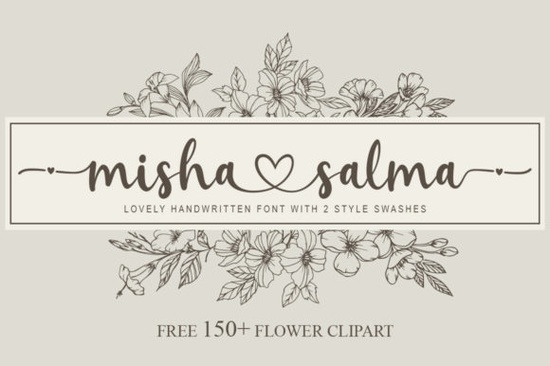
If you've been searching for a handwritten font that feels both elegant and approachable, the Misha Salma Font is worth a close look. It's a dainty, refined script that works beautifully for wedding invitations, greeting cards, and any project that calls for a romantic, personal touch. I've used it across several design projects, and it consistently delivers that warm, hand-lettered feel without looking messy or overdone.
What kind of projects is Misha Salma best suited for?
This font shines in projects where elegance meets intimacy. Think wedding stationery, love letters styled as art prints, Valentine's Day cards, or boutique branding for small businesses in the beauty and lifestyle space. The letterforms are delicate and flowing, so they pair well with soft color palettes and minimal layouts.
Here are a few project ideas where Misha Salma really works:
- Wedding invitations and save-the-dates the romantic style fits formal and semi-formal layouts
- Greeting cards birthdays, anniversaries, thank-you notes
- Social media quotes especially for lifestyle and beauty brands
- Print-on-demand products mugs, tote bags, and wall art with a feminine aesthetic
- Logo design for florists, bakeries, or boutique shops looking for a personal feel
If you're building a wedding-themed font collection, this one deserves a spot alongside your other favorites.
How does Misha Salma compare to other script fonts?
There are plenty of handwritten and script fonts out there, so what sets this one apart? The biggest thing I've noticed is its balance. Some dainty fonts are so thin they disappear on printed products. Others are so ornate they become hard to read. Misha Salma sits in a sweet spot refined enough to feel luxurious, but legible enough for body text on smaller items like business cards.
Compared to an elegant wedding font style, Misha Salma feels a bit more personal and less formal. If you want something with a bit more contrast, the Bread and Butter Duo gives you a script and sans-serif combo that works well for logos. And if you prefer a more modern calligraphy approach, Astutely offers a slightly bolder take that pairs nicely with the Astutely aesthetic on darker backgrounds.
For those working on edgier designs, something like the Cyber Brush style provides a completely different energy rougher and bolder, better suited for posters or streetwear branding than romantic stationery.
That said, always double-check the specific license terms at the time of purchase. Licensing details can change, and it's your responsibility to make sure your intended use is covered before listing products for sale.
What fonts pair well with a dainty script like this?
Pairing script fonts with the right companion typeface can make or break a design. Here are a few practical tips:
- Use a clean sans-serif for body text something like Montserrat, Poppins, or Raleway keeps things readable
- Add a simple serif for a more classic wedding look Playfair Display or Lora work well
- Avoid pairing with another ornate script it creates visual clutter and makes the layout hard to follow
The general rule is: one hero font, one supporting font. Let Misha Salma be the star of headlines or names, and keep everything else clean and understated.
Quick checklist before you download
- ✅ You need a romantic, dainty script for invitations or branding
- ✅ You prefer a refined style over bold or rough scripts
If most of those boxes are checked, script fonts like this one are a solid addition to your toolkit. Preview it with your own project names or taglines to see how it feels in context before committing that's the best way to know if the style fits your vision.